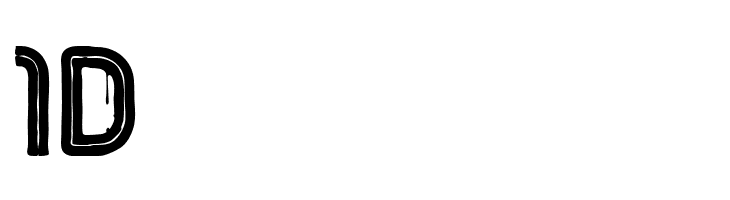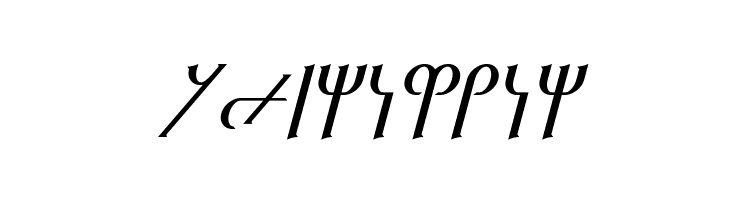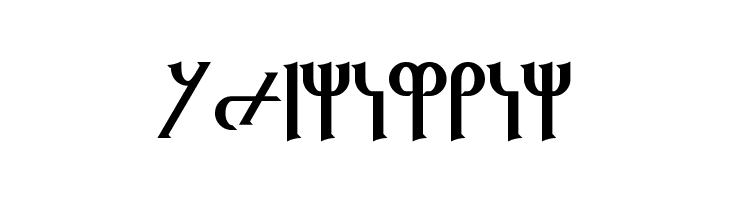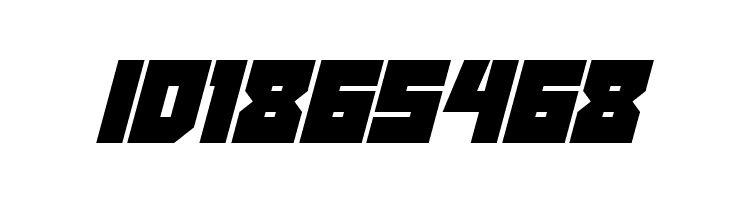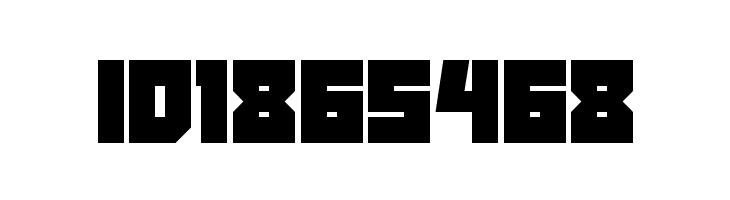
An intricate and decorative font with a blend of sharp angles and smooth curves.
A bold, decorative font with intricate curves and sharp angles, ideal for artistic designs.
A bold, italicized font with high contrast and a modern, decorative style.
A decorative italic font with sharp, angular strokes and a flowing, cursive-like style.
A bold, geometric font with a strong industrial feel.
A bold, angular italic font with a dynamic and aggressive style.
A modern, geometric font with clean lines and a minimalist style.
A bold, decorative font with a distressed, dripping effect.
A bold, distressed font with a rugged, grunge-like texture.